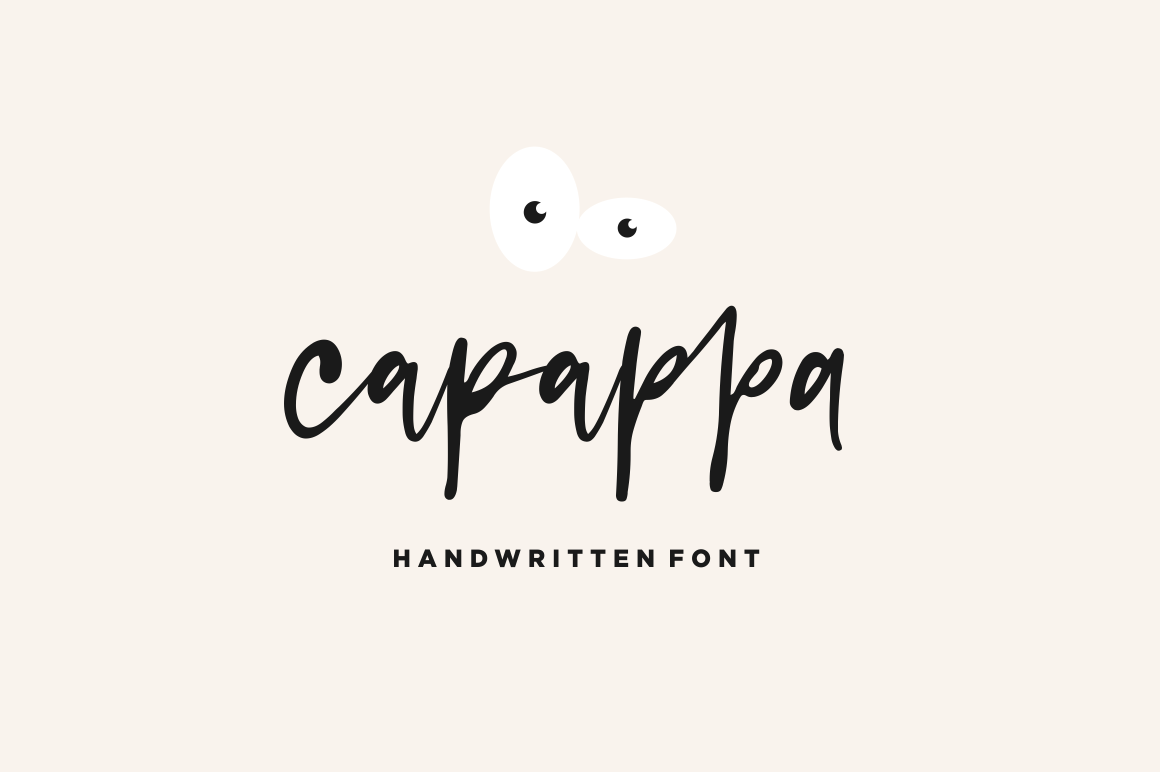
capappa - Handwritten Font
Capappa is a natural handwritten font, this font Is perfect for logo, invitation, stationery, wedding designs, social media posts, advertisements, product packaging, product designs, label, photography, watermark, special events or anything.
Capappa comes with full set of uppercase and lowercase letters, Contextual alternates , multilingual symbols, numerals, punctuation.